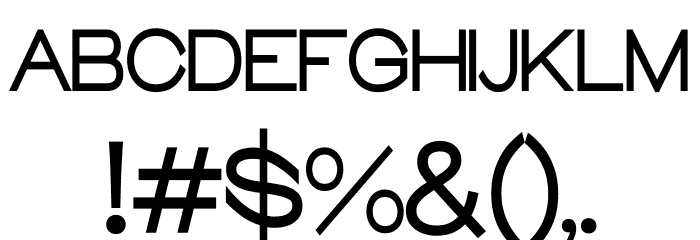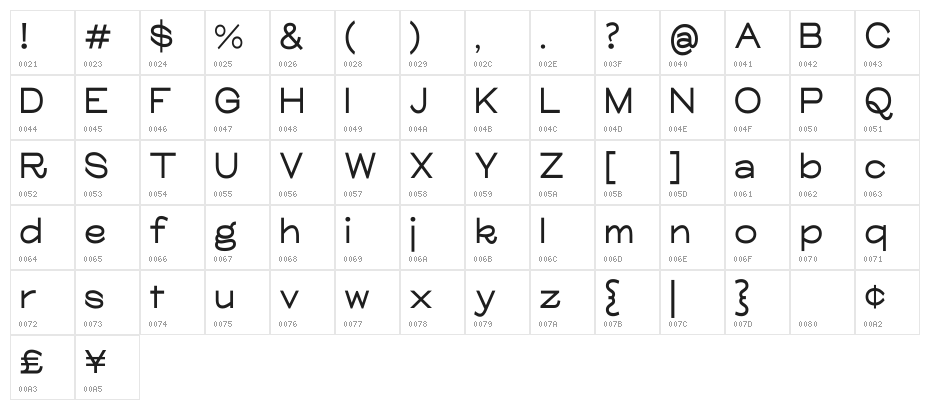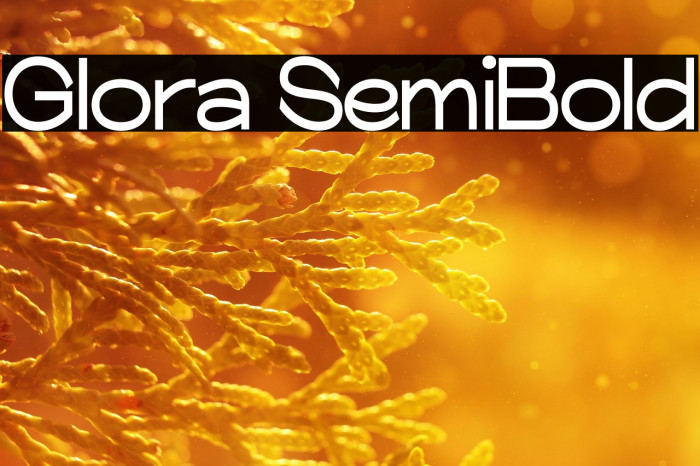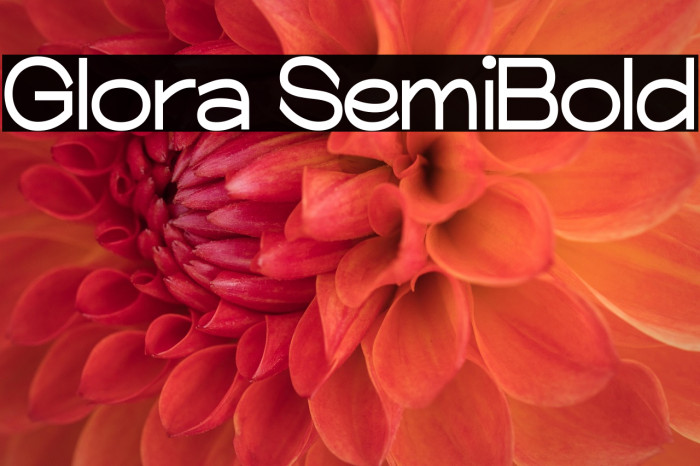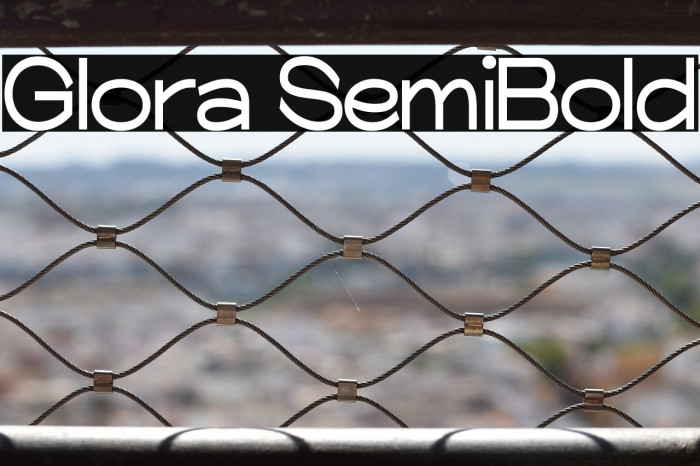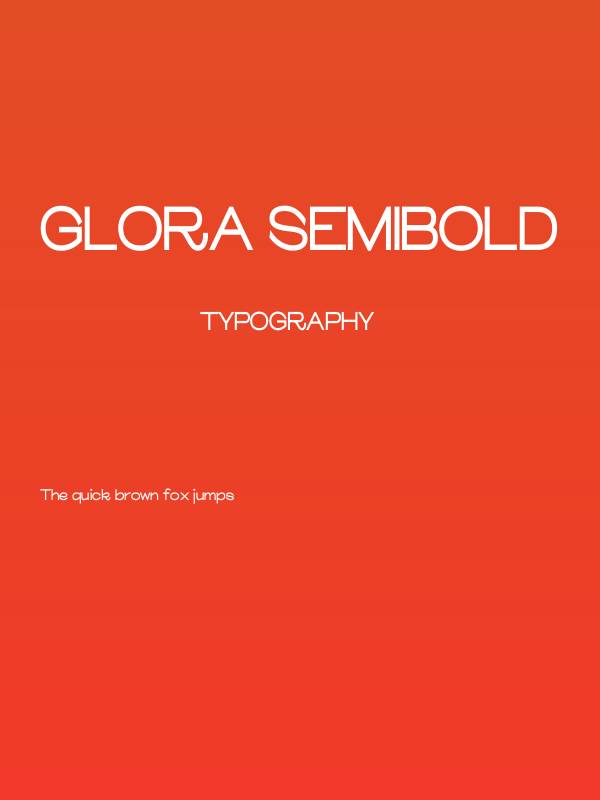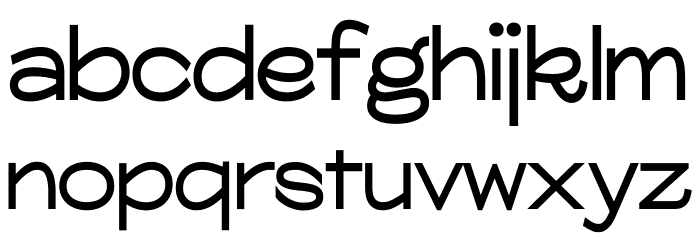
Glora SemiBold Font
Glora SemiBold Description
This font features a clean and modern sans-serif design with a semi-bold weight that provides a strong presence without being overwhelming. The characters are well-proportioned, with a consistent stroke width that offers a balanced appearance. The uppercase letters are bold and assertive, while the lowercase letters maintain a friendly and approachable look. The numerals and special characters are designed to complement the alphabet, ensuring readability and versatility across various applications. The overall aesthetic is sleek and contemporary, making it suitable for a wide range of design projects.
| Proposed Projects | Ideal for branding, advertising, web design, and editorial layouts where a modern and professional look is desired. |